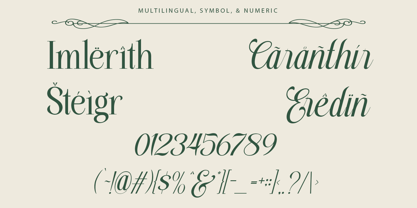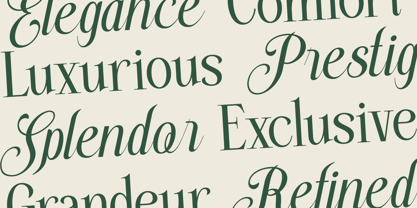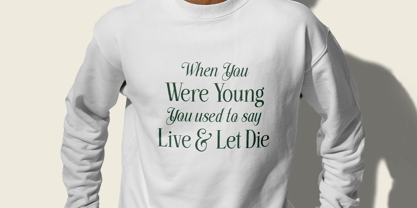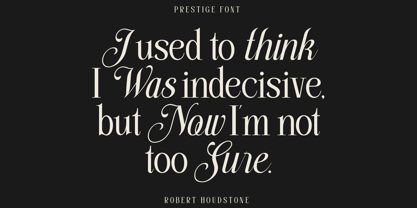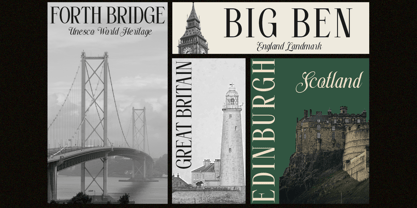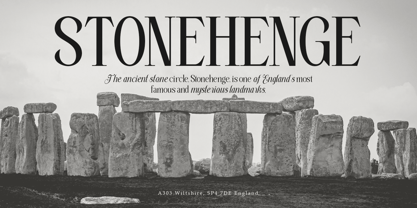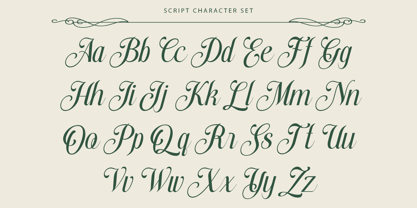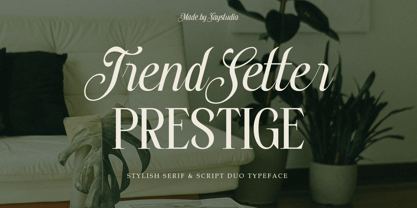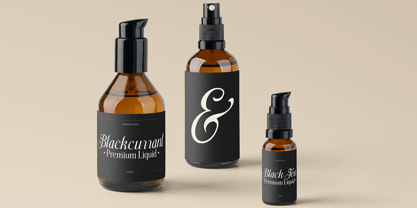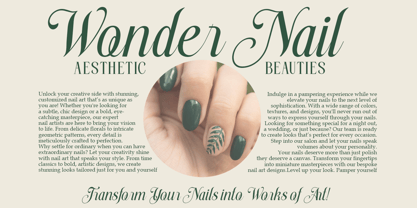
Trendsetter Prestige
by Say Studio
The Trendsetter Prestige Font Family was designed by Mussyayin and published by Say Studio. Trendsetter Prestige contains 2 styles and family package options.
Trendsetter Prestige - Duo Typeface. This luxury script and timeless serif are perfectly designed for one another-not only are they strong standalone fonts, but will pair beautifully when placed side by side. Feeling creative? They can even be mixed together within the same word for a more eye-catching layout, giving you a versatile set of fonts which can be used & loved across a range of design projects like project: book, magazines, logo, branding, photography, quotes, blog header, poster, advertisements, etc.
- Trendsetter Serif
- Trendsetter Script
- Multi Language